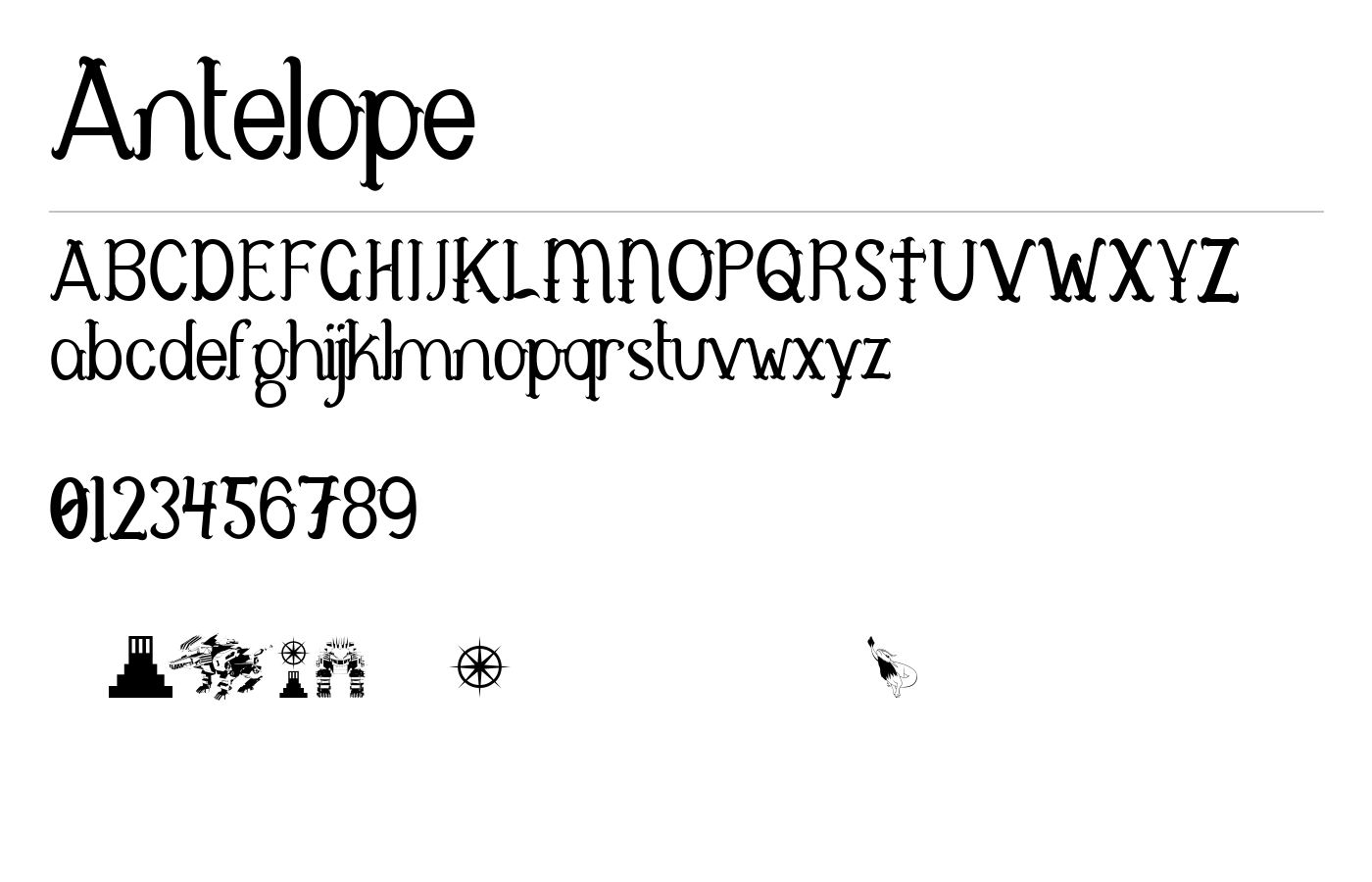
Antelope is a quirky serif font with a playful, hand-crafted feel, featuring delicate, irregular serifs and a mix of thick and thin strokes that create a whimsical texture. Its tall, narrow letterforms and unique details like curved tails and uneven stem weights give it a distinctive, artistic character ideal for creative projects, branding, and display use where personality and charm are desired.
Antelope Font
About Antelope Font